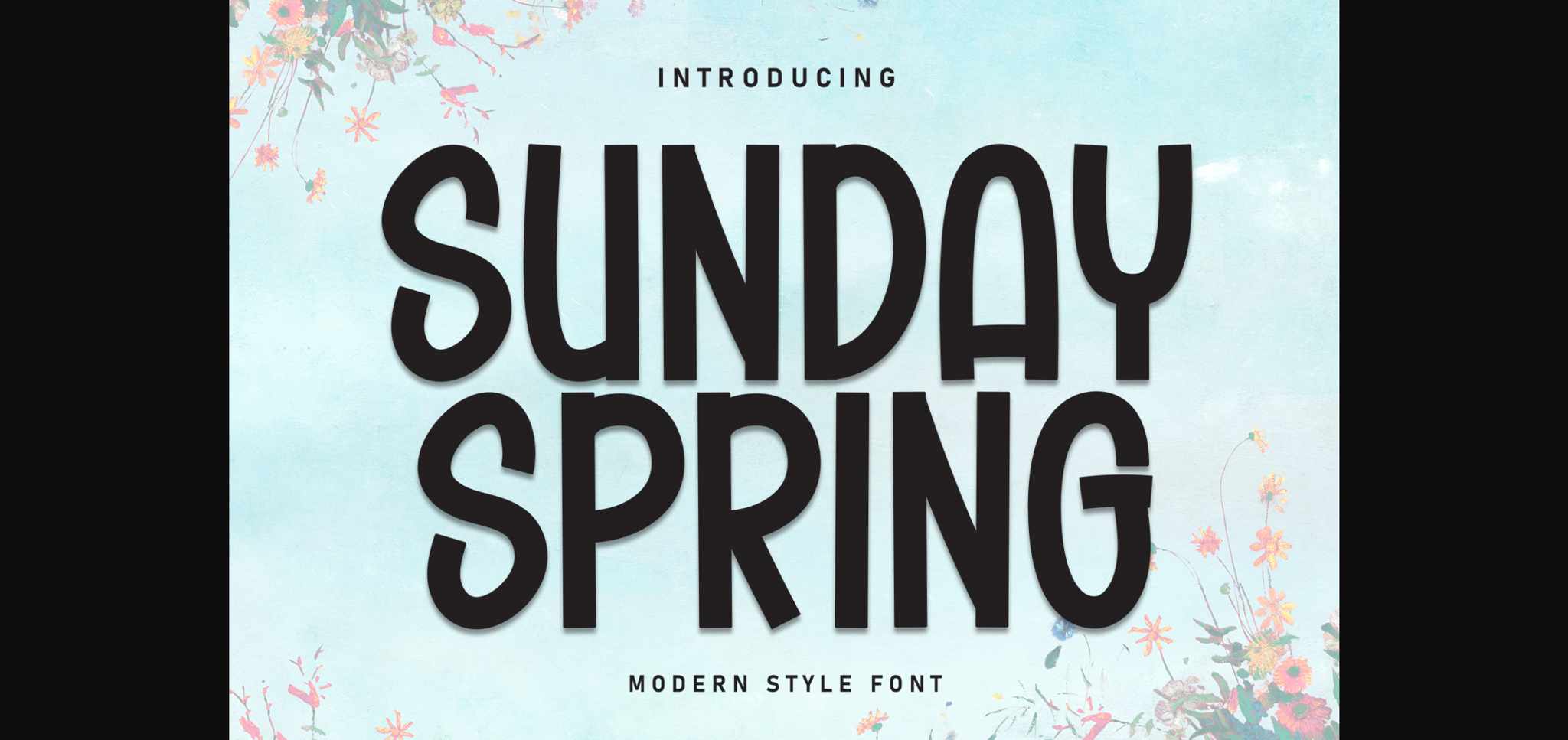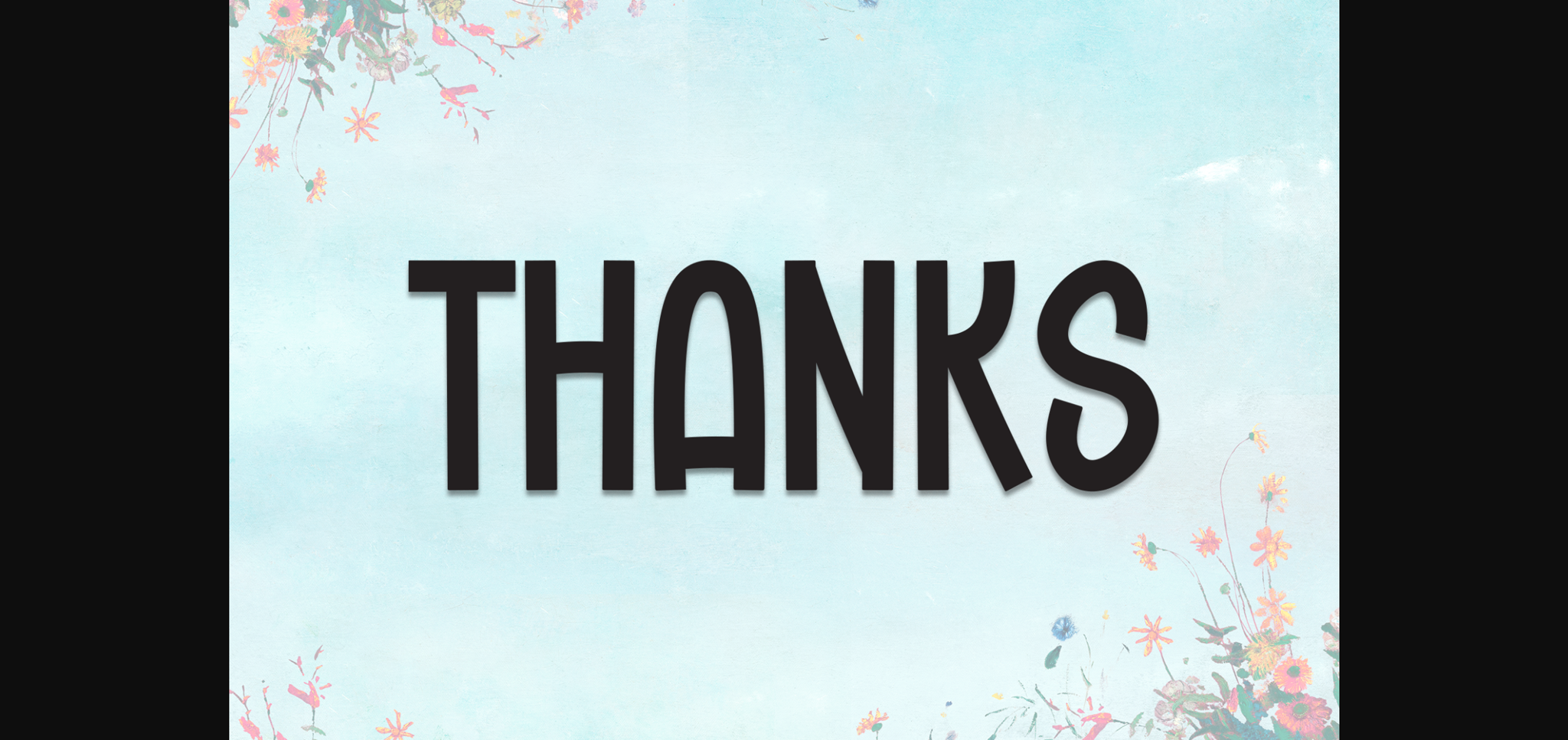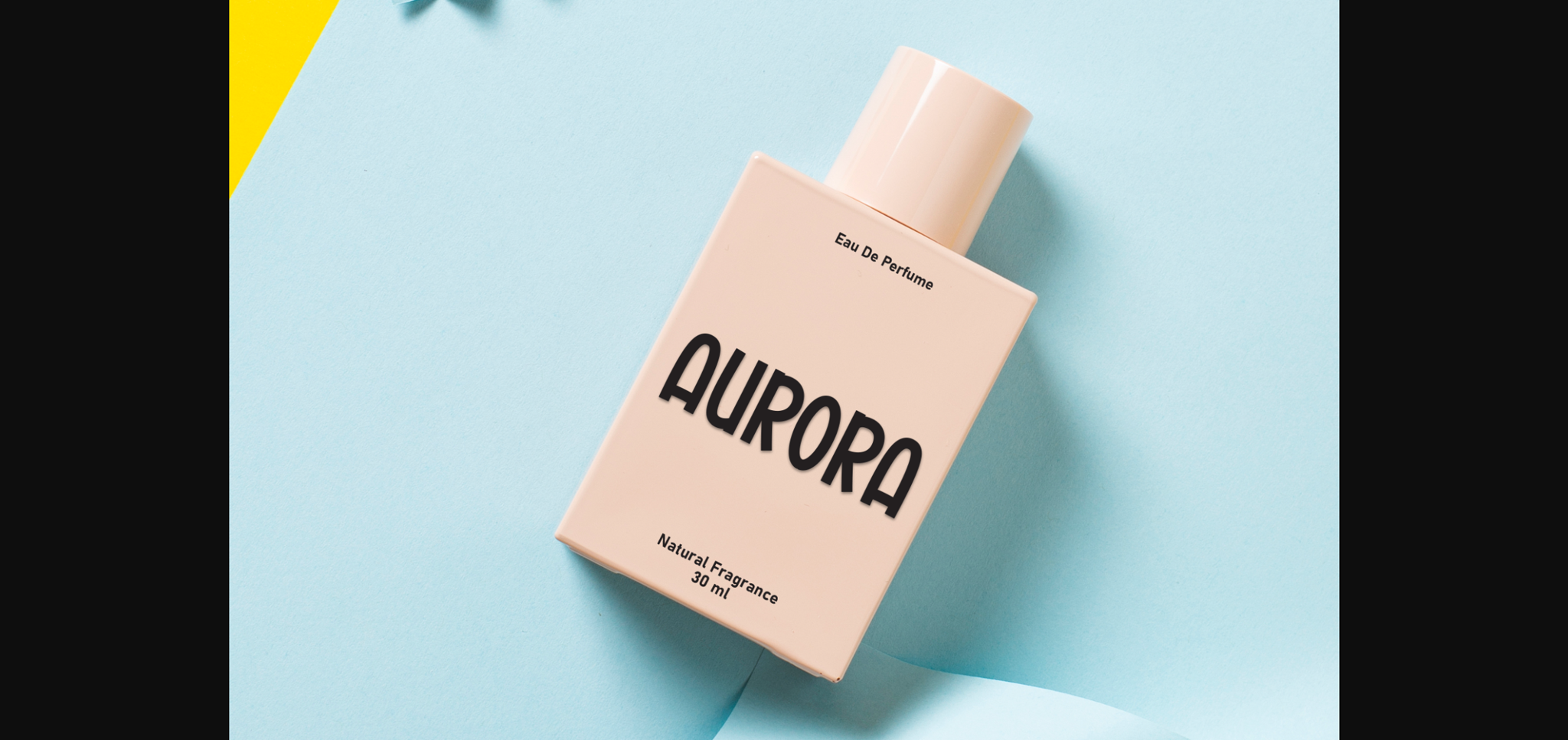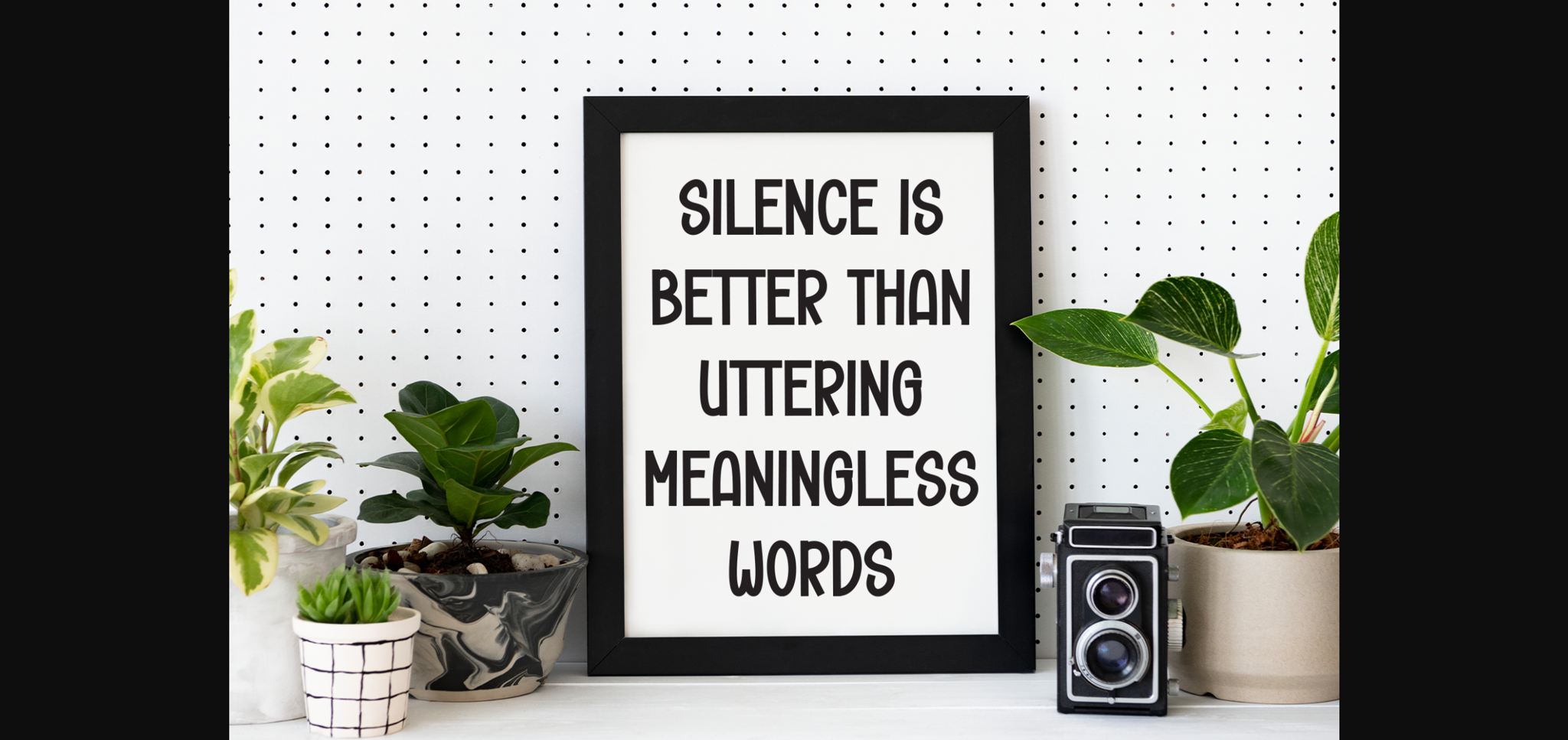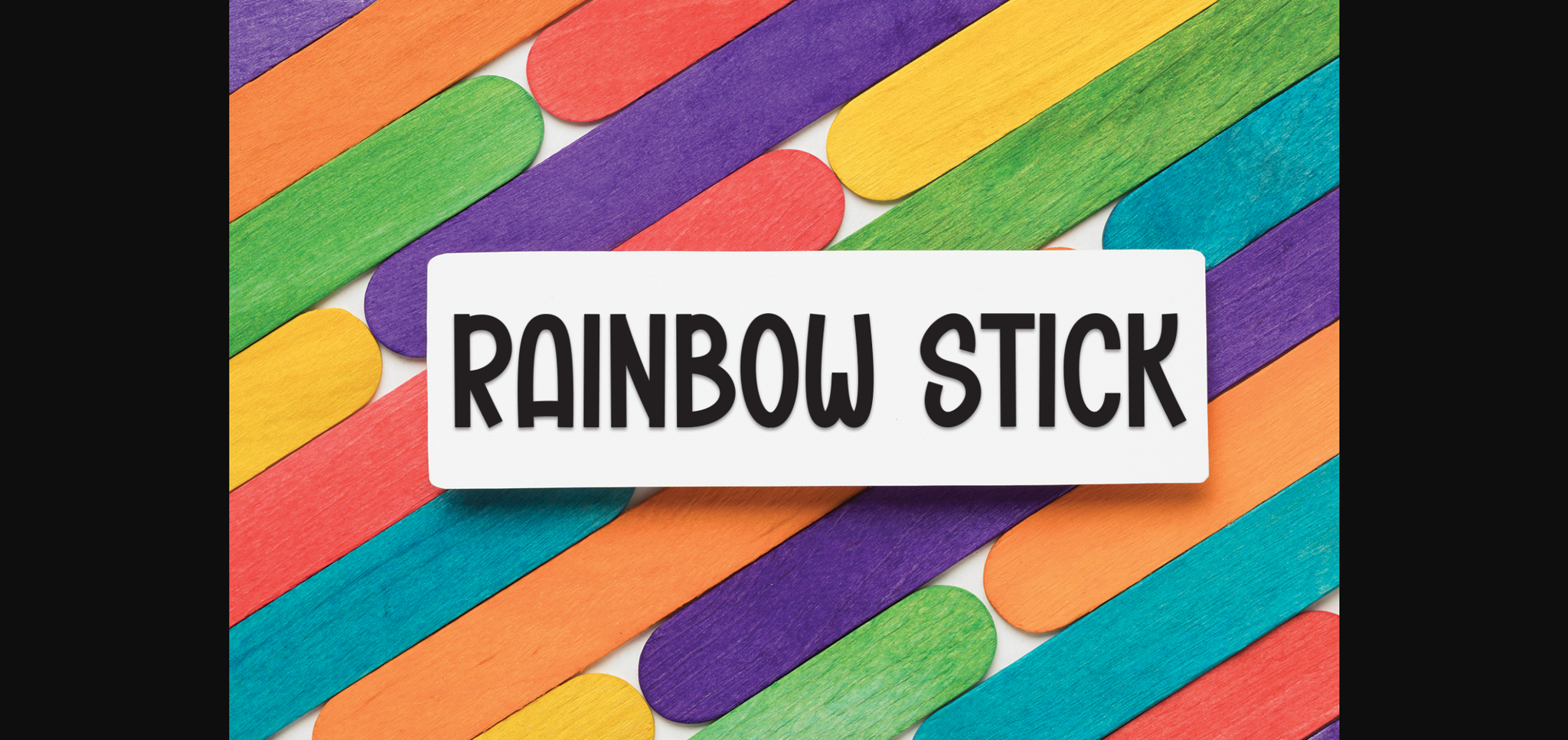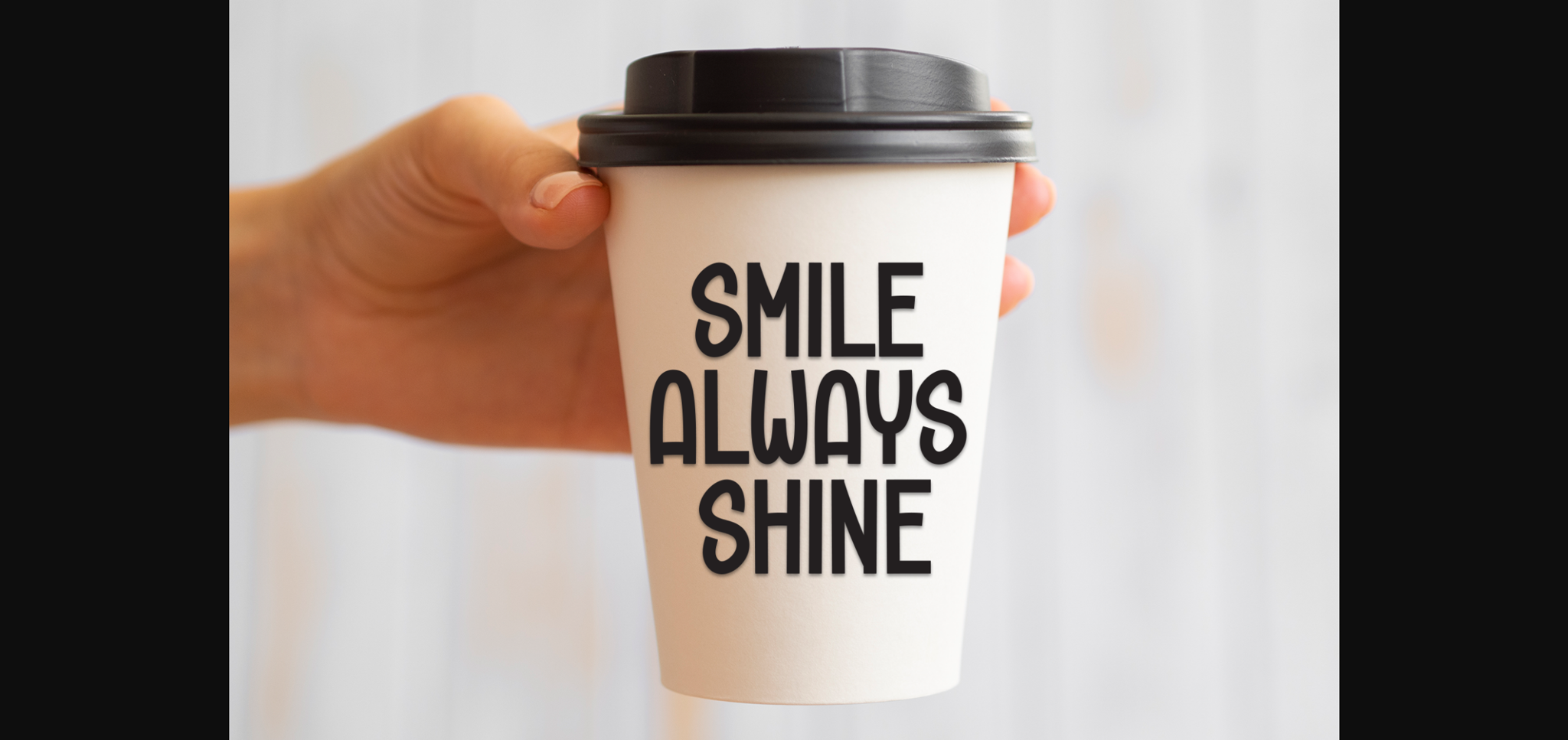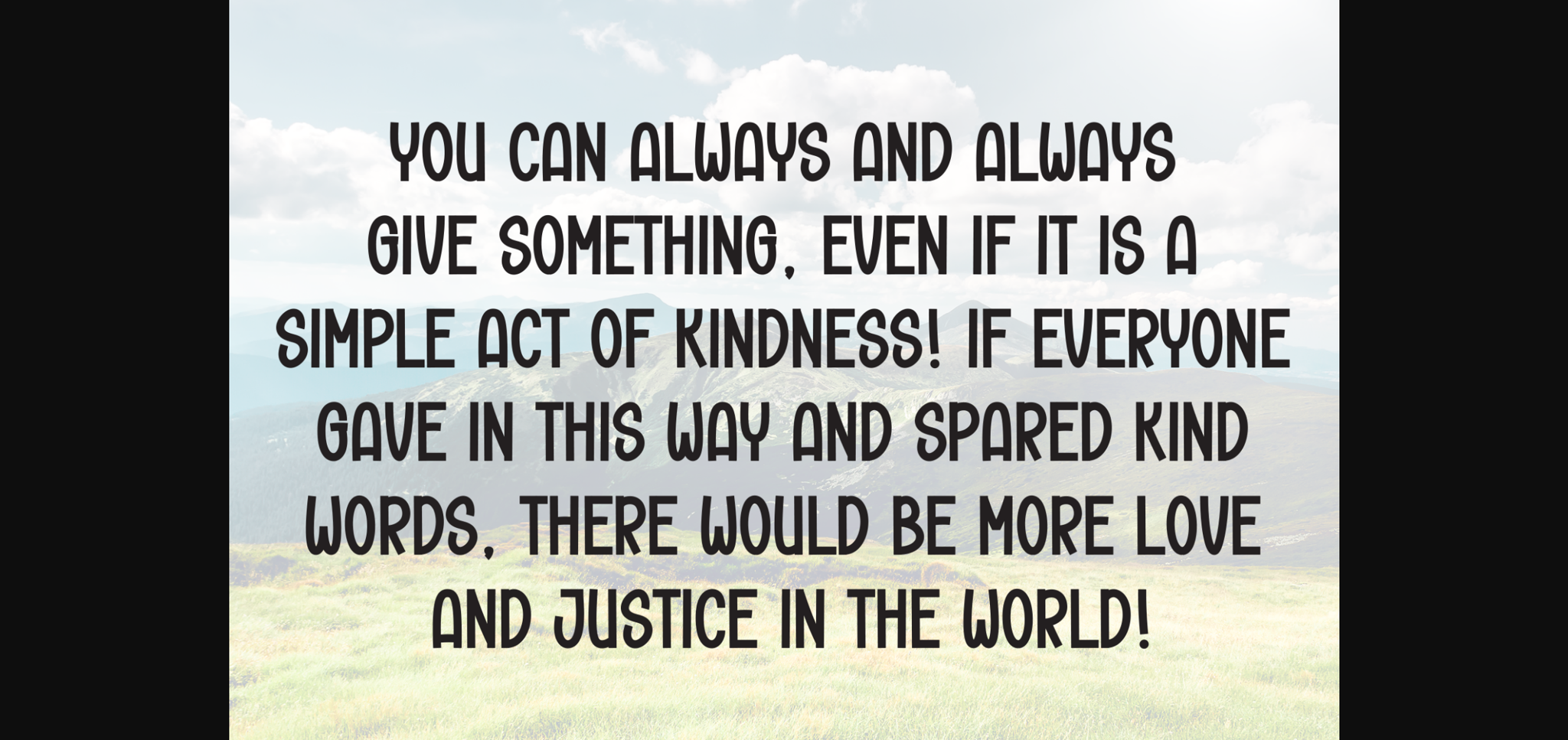
Sunday Spring Font
About Sunday Spring Font
Sunday Spring is a sleek and versatile sans-serif font designed for clarity and readability. With clean lines and balanced proportions, it exudes a modern and professional aesthetic. Ideal for a wide range of applications, from digital interfaces to print materials, it ensures clear communication with a contemporary flair.